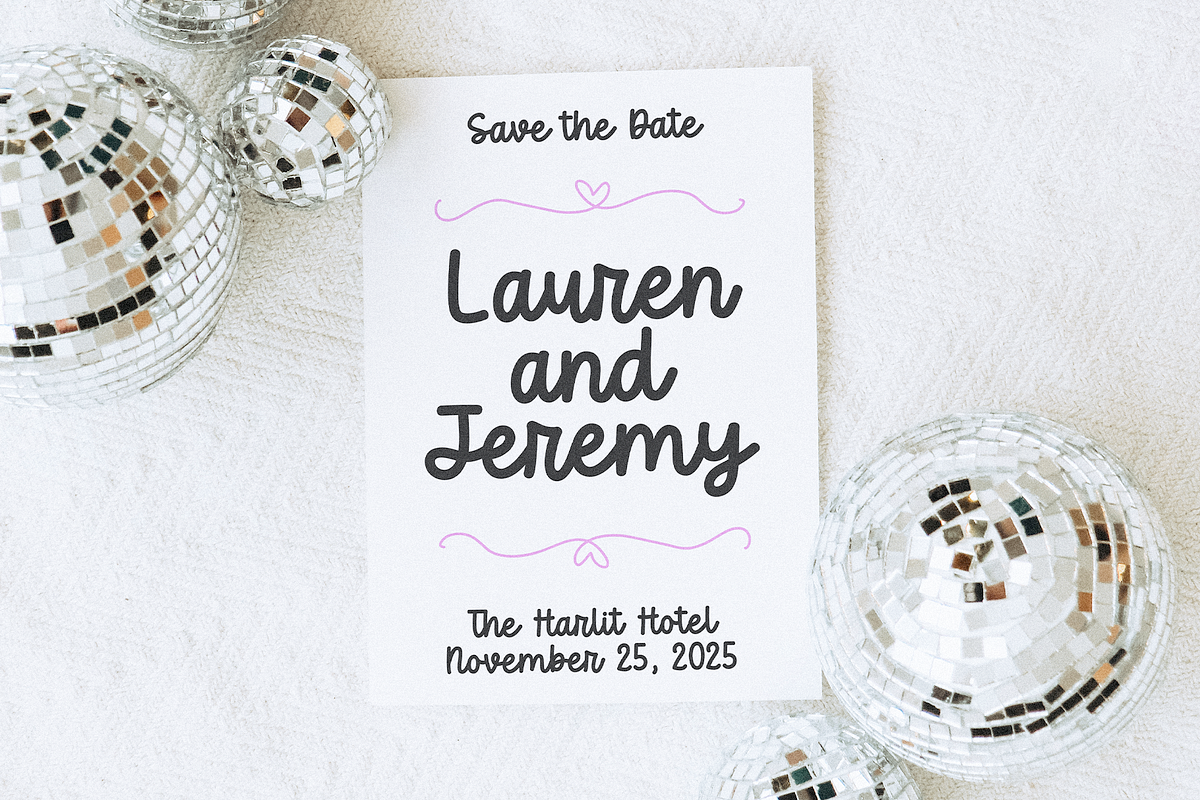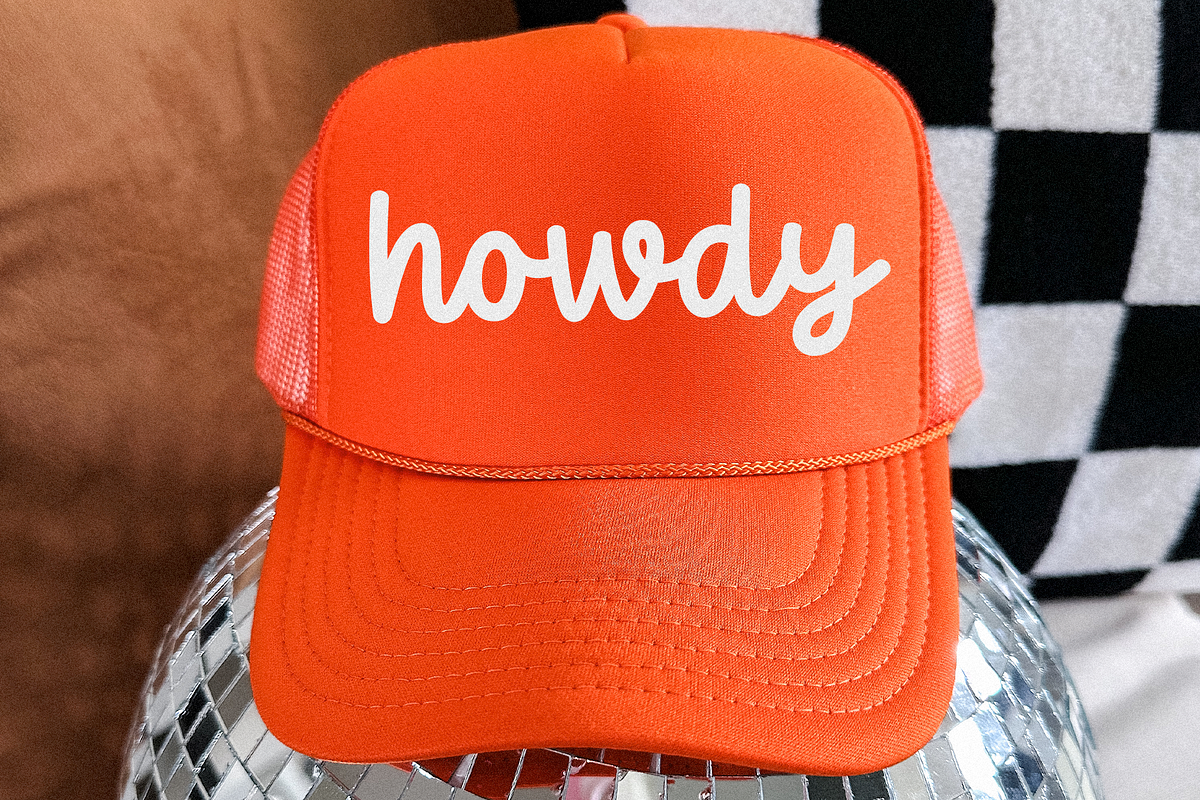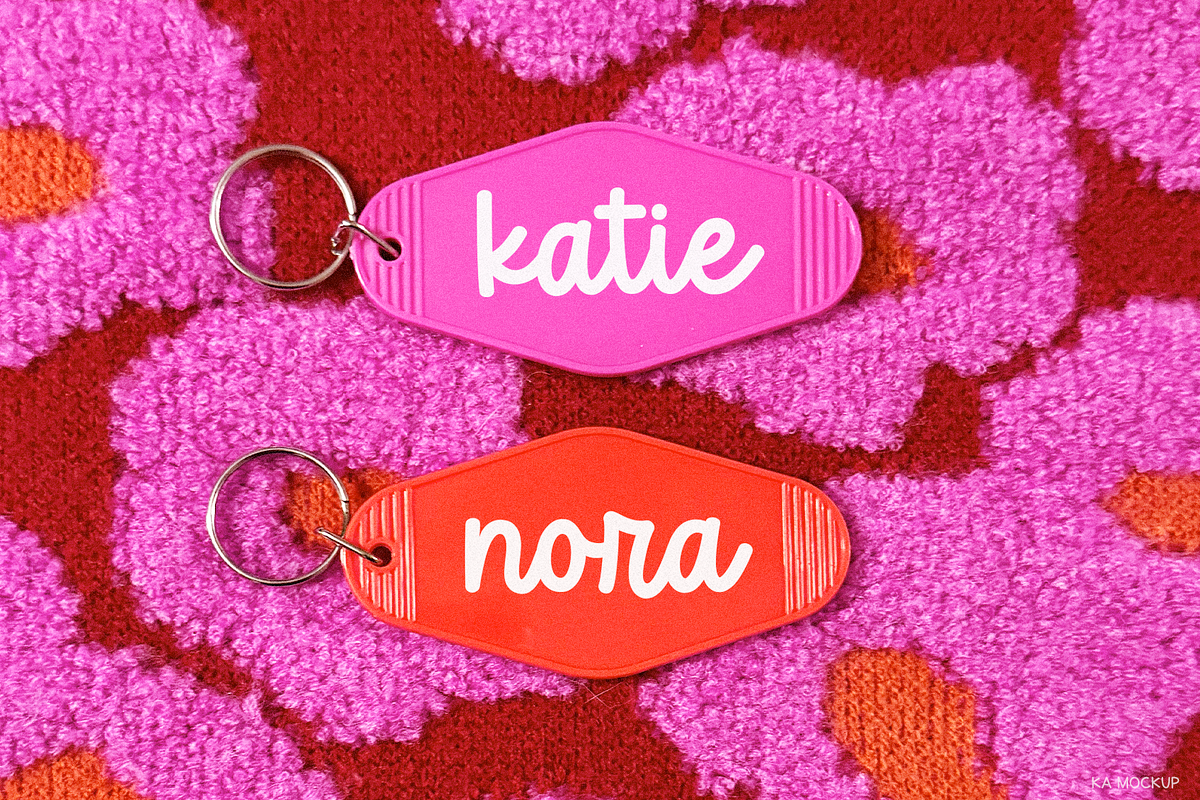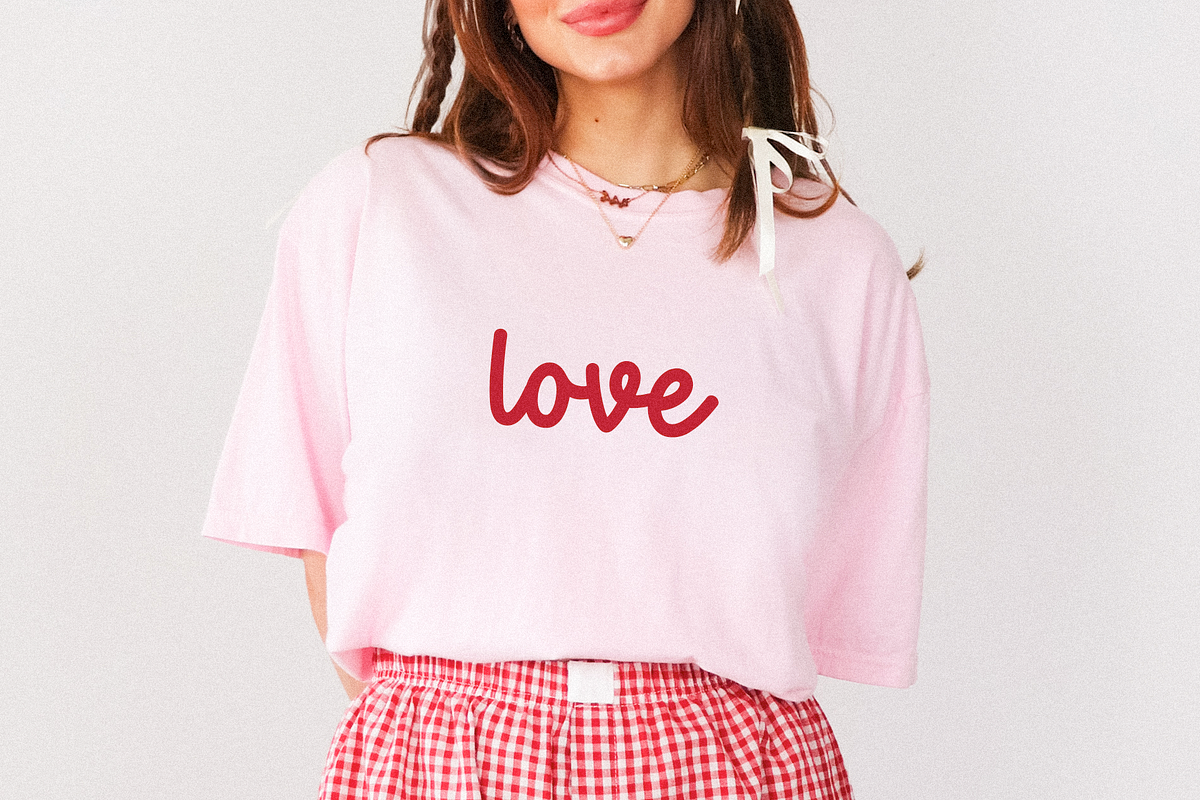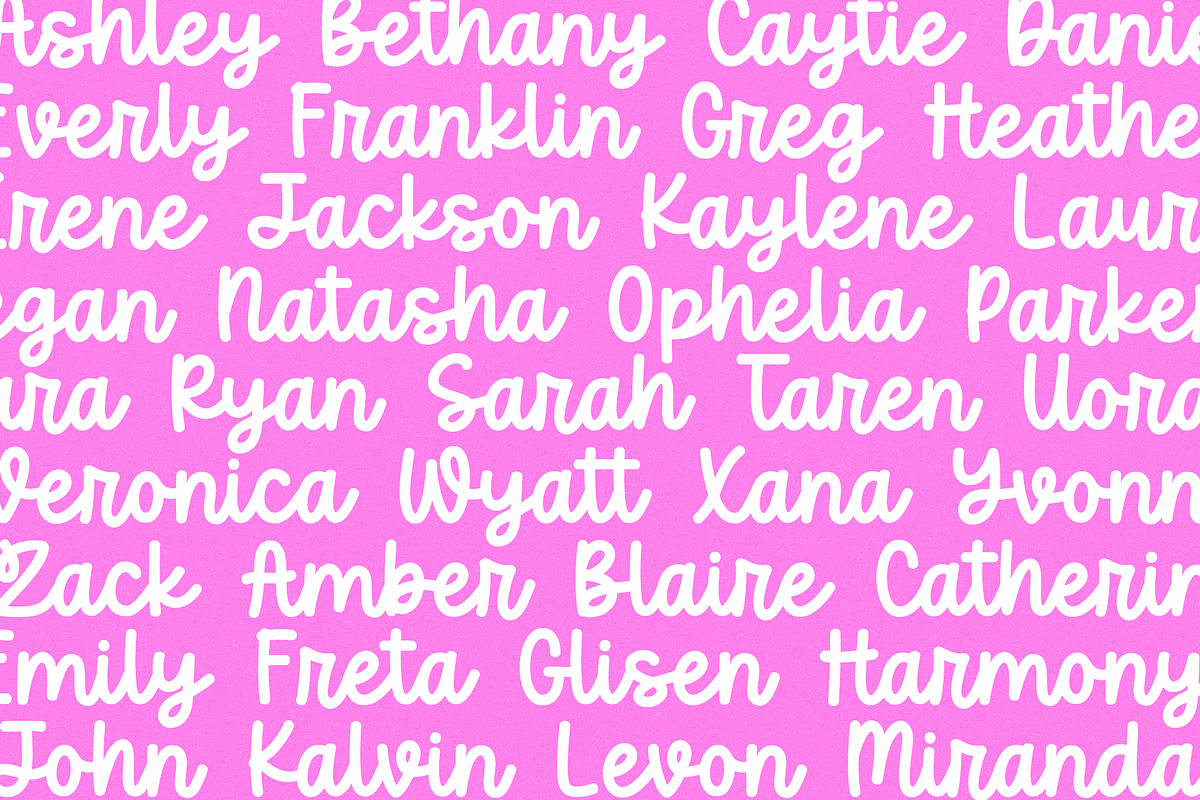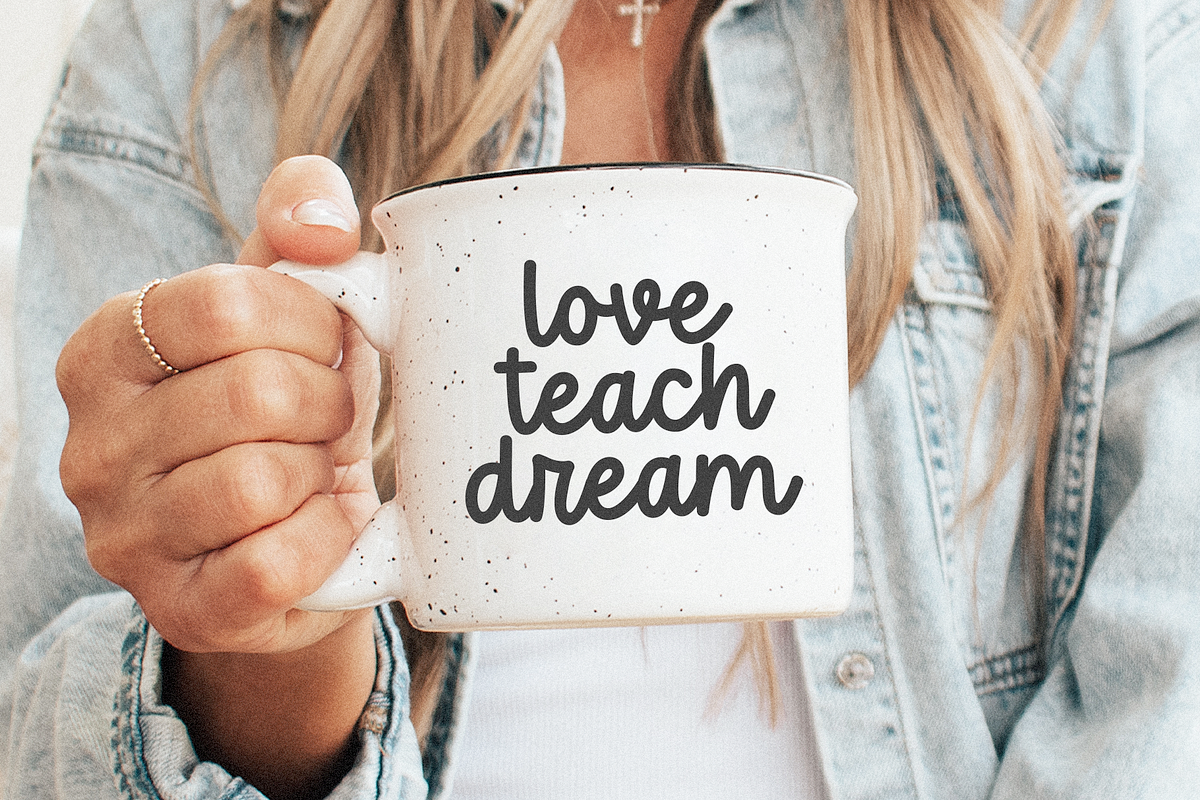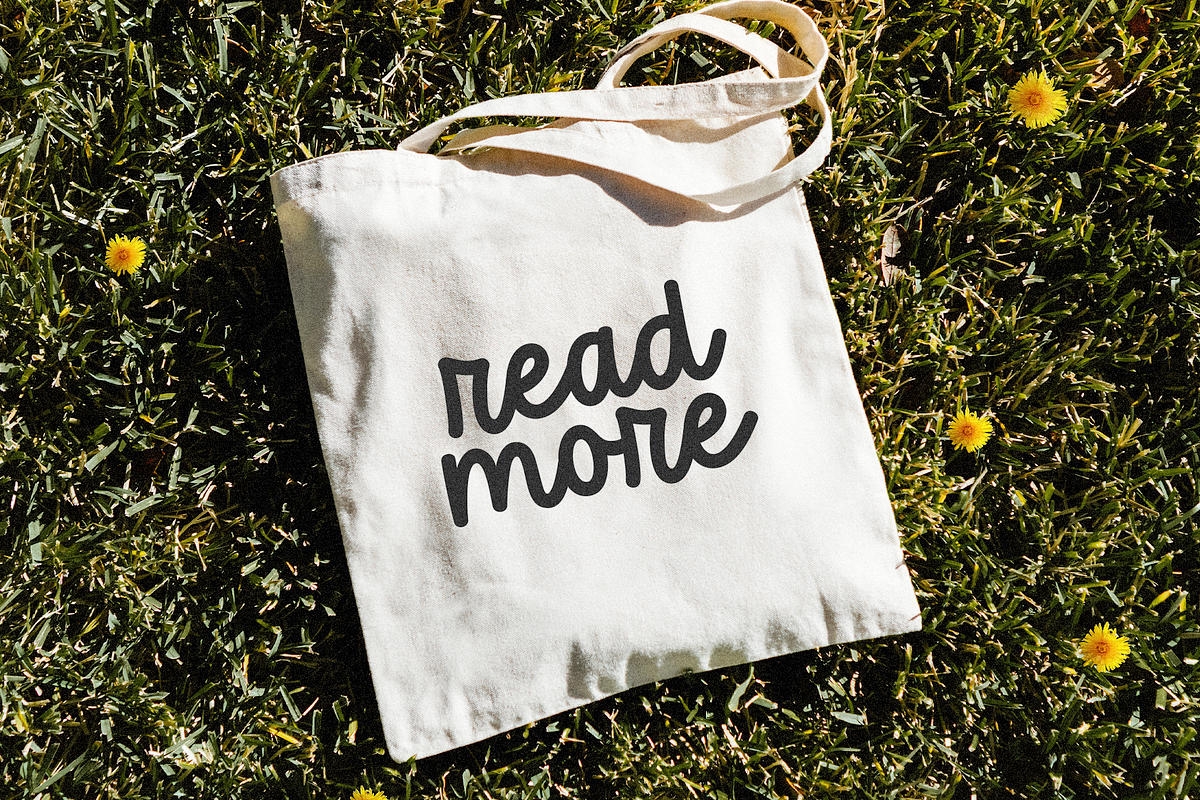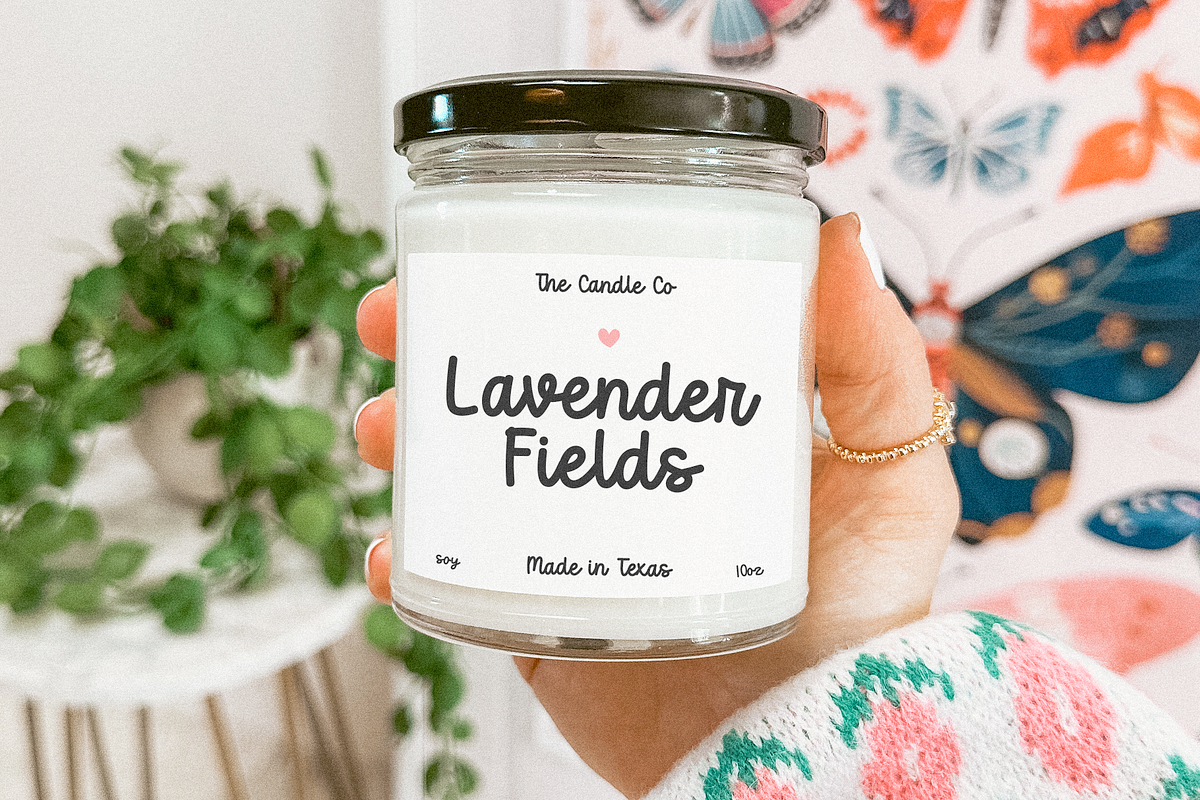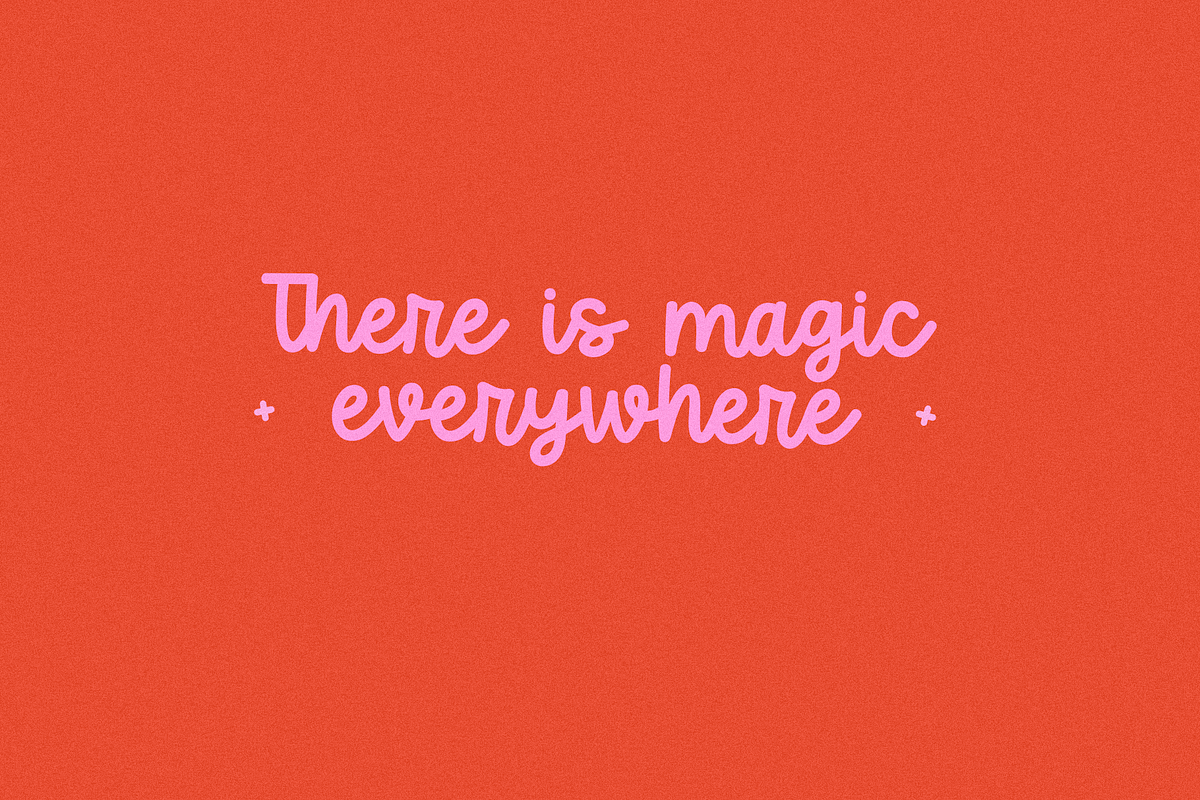
Wild Grace | Cute Script Font
Wild Grace is a cute handwritten script font.
This font is perfect for logos, cricut projects, names, shirts, svg files, teachers, goodnotes, planners and more!